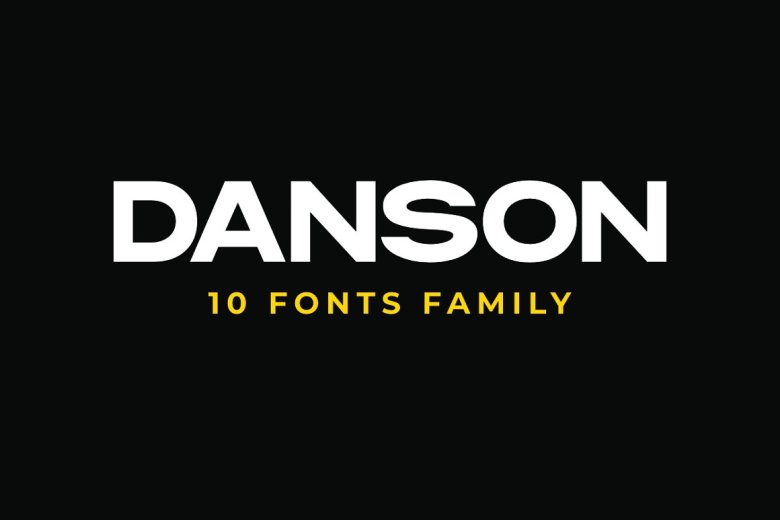
Danson Font
Danson Sans Font has been designed with care. Danson fonts are perfect for printing projects, advertisements campaigns, posters and books titles among many other uses.
Danson Sans Serif Font